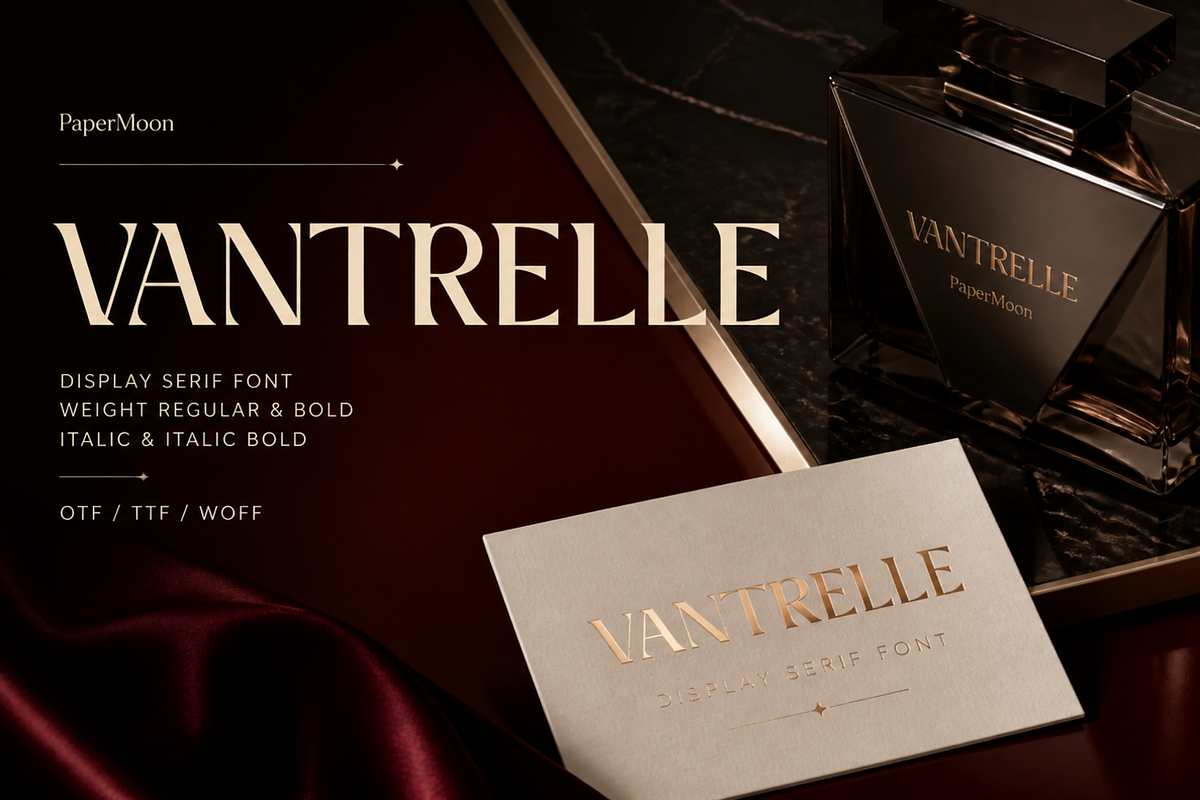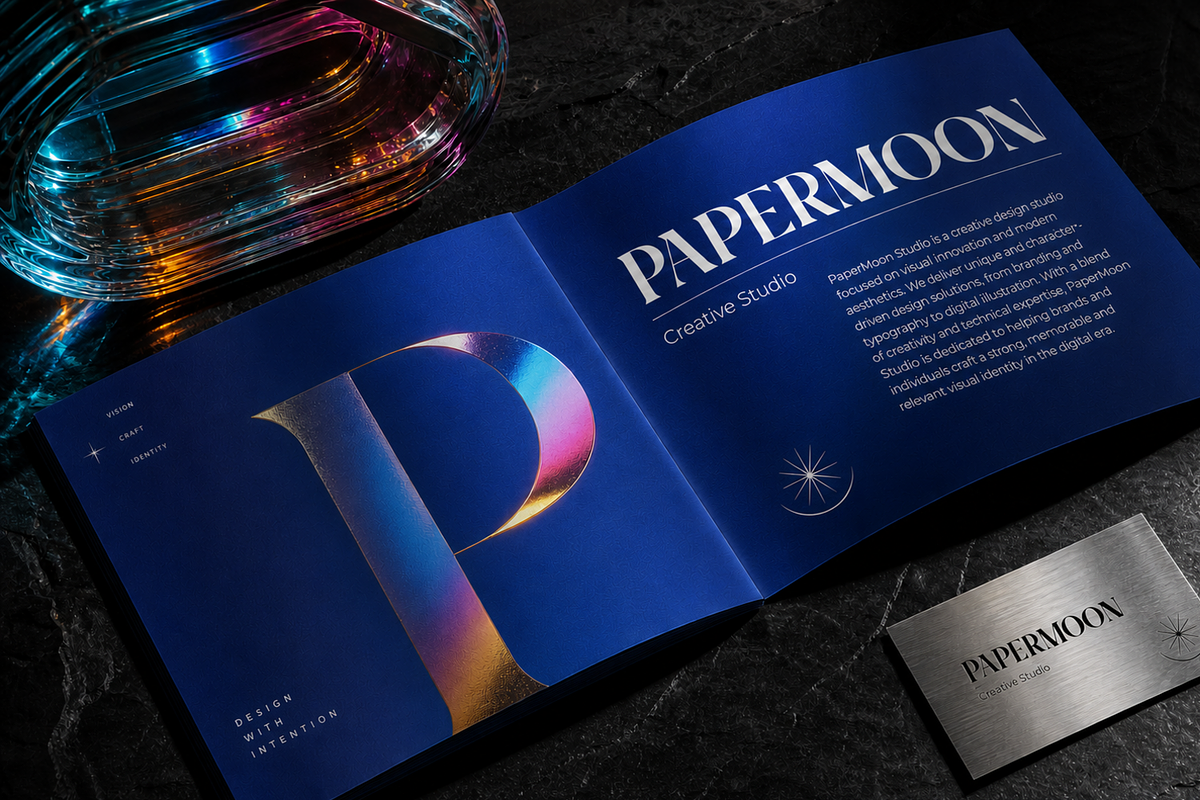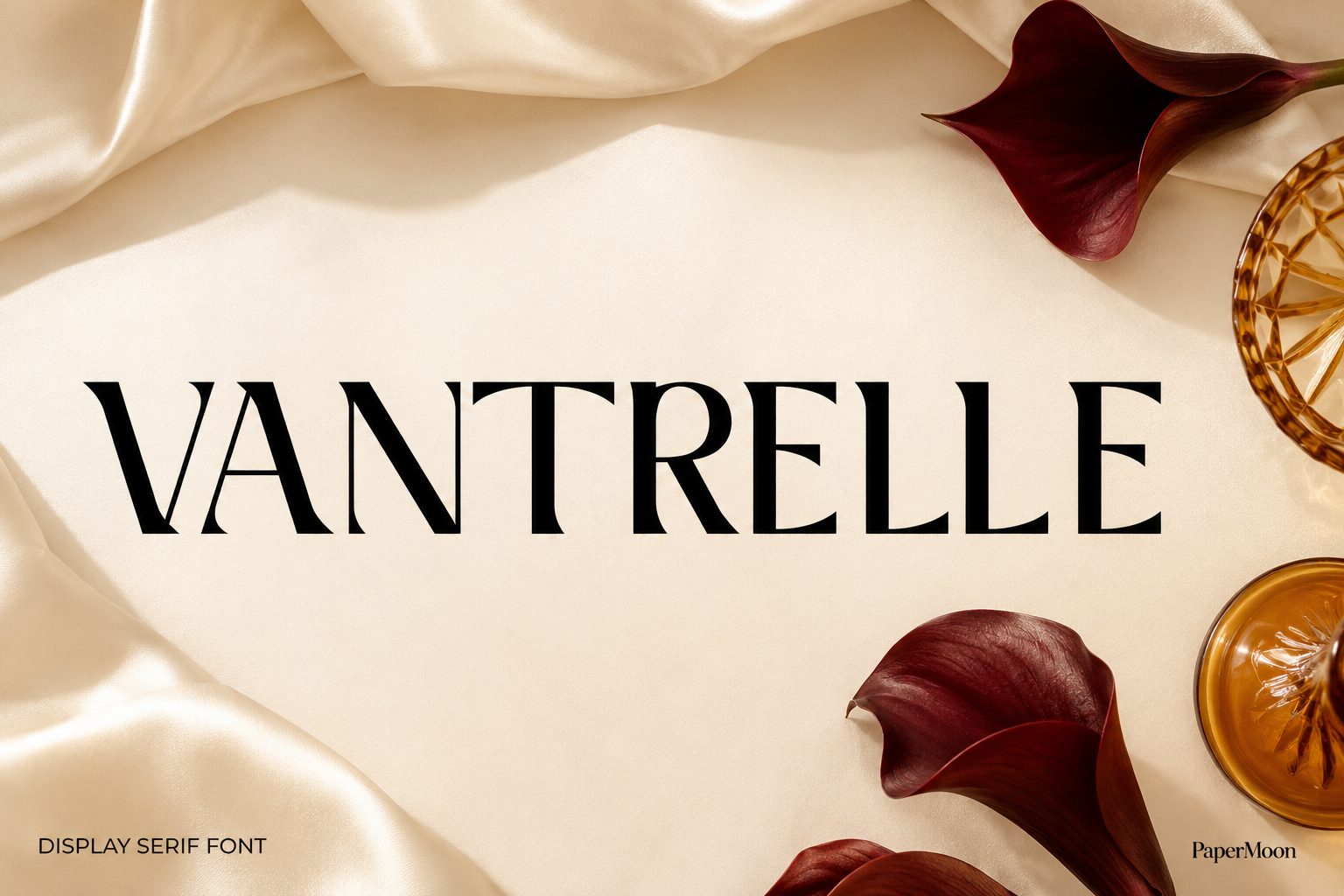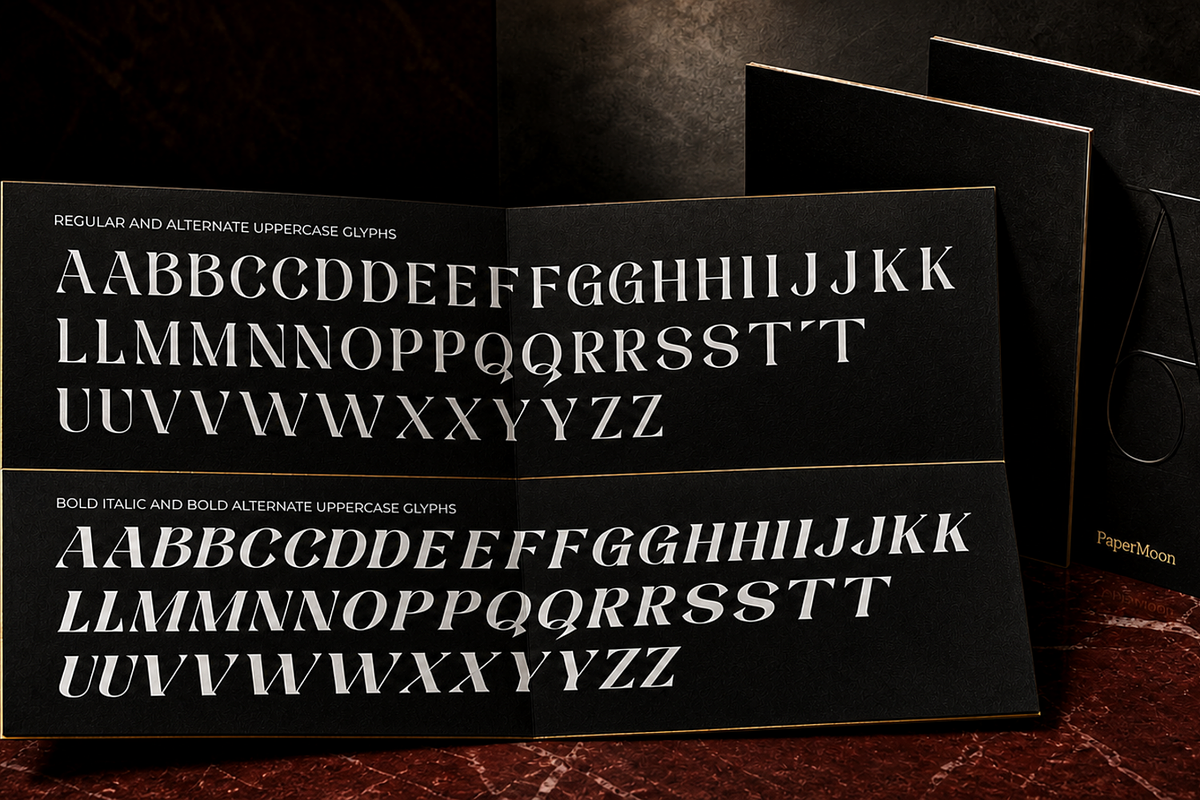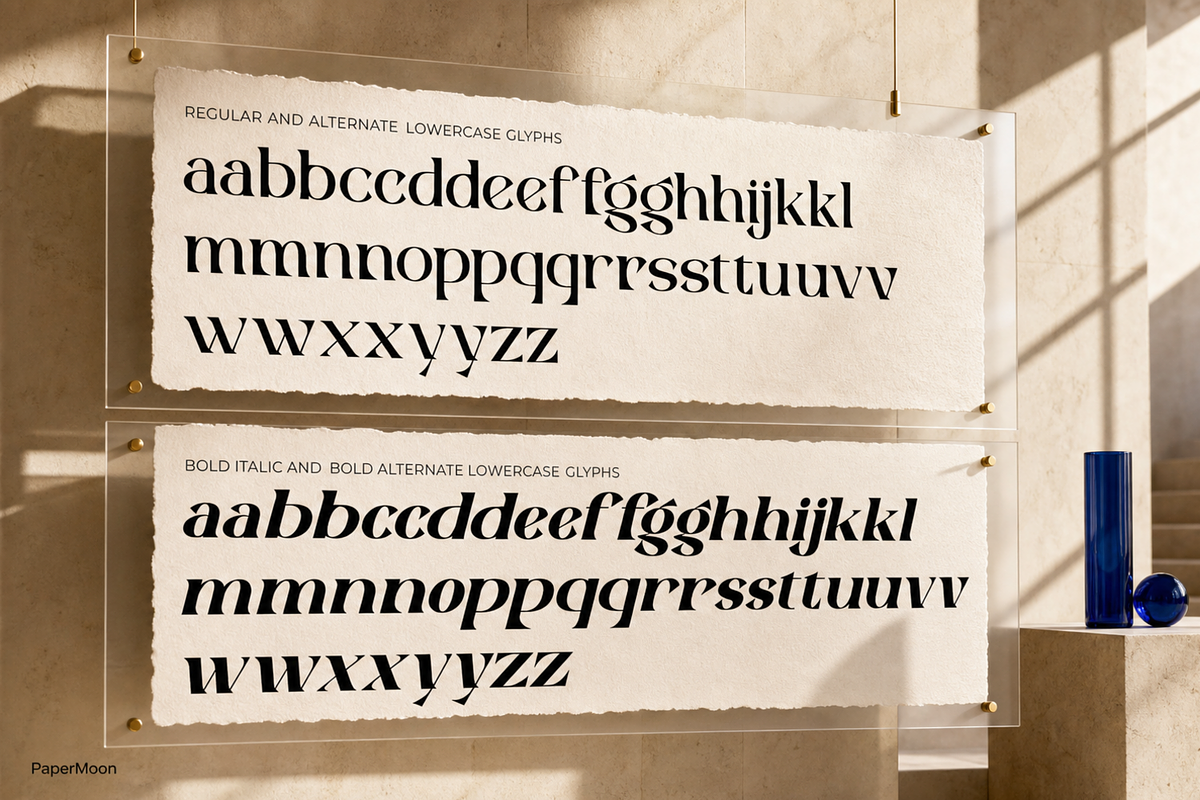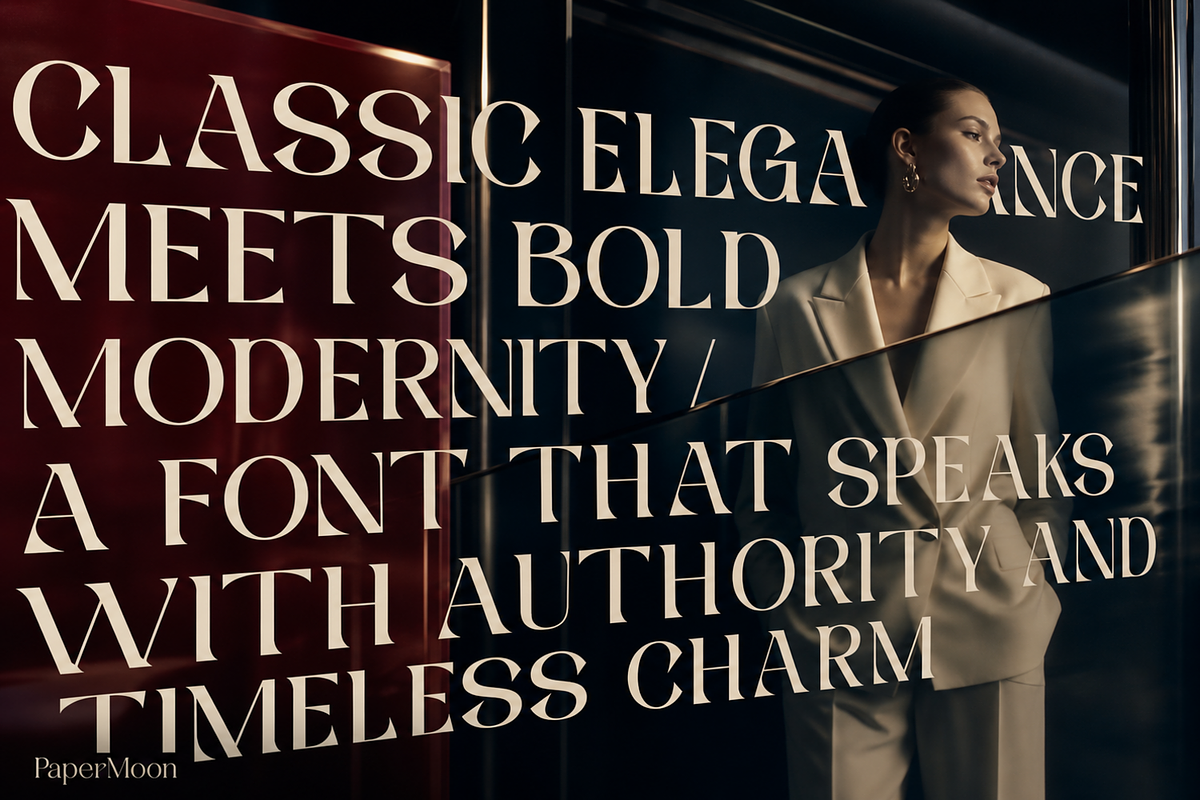
VANTRELLE Luxury Display Serif Font
VANTRELLE is a bold, dramatic display serif that walks the line between classic elegance and modern luxury. It carries a slightly mysterious character - confident, refined, and impossible to ignore. This is a font built for brands that want to feel exclusive before they say a single word.
2 full styles: Regular and Italic - pair the upright for statements, the italic for movement and emphasis in headlines and pull quotes.
279 glyphs per style: Complete uppercase and lowercase, numerals, punctuation, and accented characters for multiple-language support.
OpenType GSUB/GPOS: Stylistic alternates and refined spacing that keep letterforms balanced from logo lockups to full editorial spreads.
Where it shines
This is a display serif font made for projects where aesthetics decide everything: luxury branding, editorial design, magazine covers, fashion lookbooks, cosmetic packaging, boutique hotel identities, logos, posters, and high-end wedding invitations. VANTRELLE holds its own as a hero typeface in print and stays striking at large display sizes on screen.